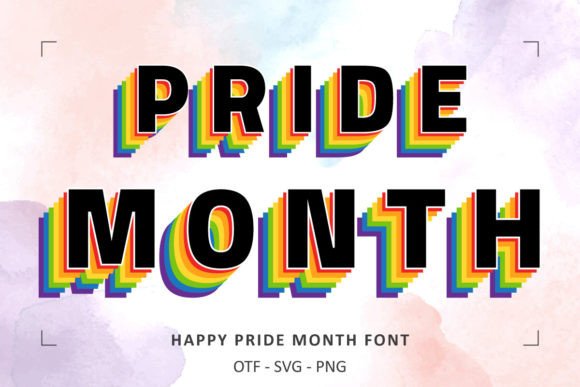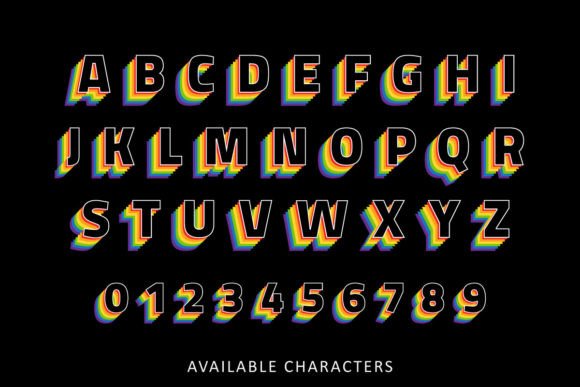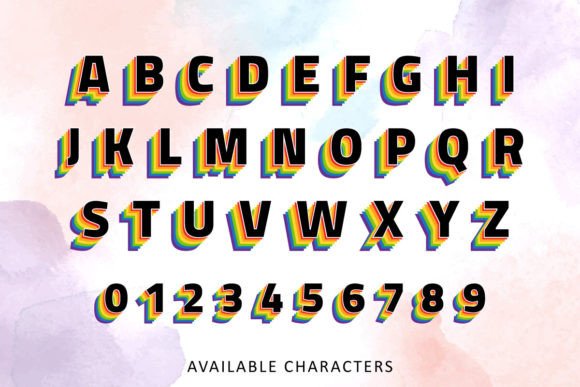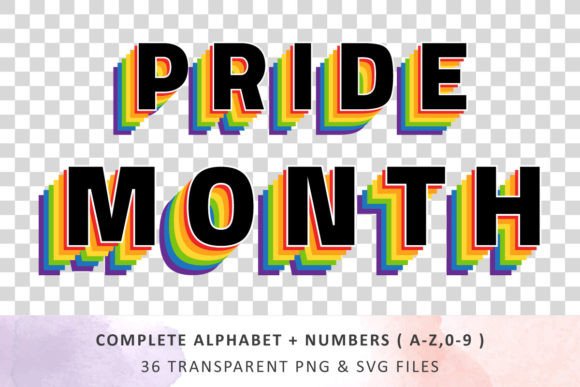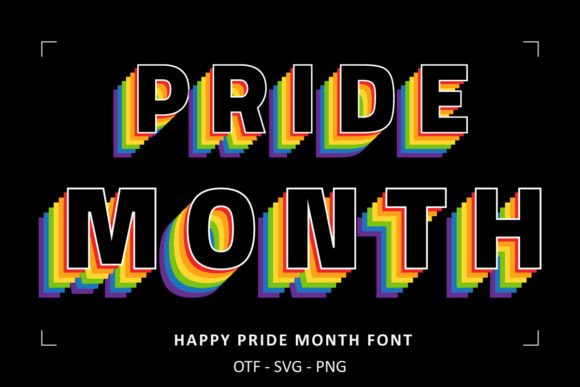
Introducing “Happy Pride Month Font” – Celebrate with Vibrancy and Joy!
As the world prepares to celebrate Pride Month, designers and crafters are on the lookout for unique and meaningful design elements that can add a touch of personality and significance to their projects. In honor of this vibrant and inclusive celebration, we’re thrilled to introduce the “Happy Pride Month Font” – a delightful typeface inspired by the iconic Rainbow Flag.
A Font that Embodies the Spirit of Pride
The Rainbow Flag, designed by Gilbert Baker in 1978, has become an enduring symbol of the LGBTQ+ community, representing diversity, inclusivity, and pride. Our “Happy Pride Month Font” captures the essence of this iconic flag, infusing your designs with a playful and festive vibe. This font is perfect for creating a wide range of Pride Month-themed projects, from social media graphics and t-shirts to greeting cards and stickers.
Key Features of the Happy Pride Month Font
- Inspired by the Rainbow Flag: Each letter and character in the font is crafted to reflect the colorful and lively spirit of the Rainbow Flag.
- Versatile and Fun: The “Happy Pride Month Font” is incredibly versatile, making it ideal for various design projects, including t-shirts, book designs, restaurant menus, blog writing, greeting cards, stickers, and more.
- Casual and Playful Style: The font boasts a casual and playful style that’s sure to add a cool touch to your designs.
Ideas for Using the Happy Pride Month Font
The possibilities are endless with the “Happy Pride Month Font.” Here are some ideas to get you started:
- T-Shirts and Apparel: Create eye-catching Pride Month t-shirts, hoodies, and hats that spread love and inclusivity.
- Social Media Graphics: Design engaging social media posts, stories, and banners that celebrate Pride Month with vibrant and fun typography.
- Greeting Cards and Invitations: Design personalized greeting cards and invitations for Pride Month events, parties, or celebrations.
- Stickers and Decals: Produce colorful stickers and decals that showcase your support for the LGBTQ+ community.
- Blog Writing and Articles: Add a touch of Pride Month spirit to your blog posts and articles with this unique font.
Why Choose the Happy Pride Month Font?
Incorporating the “Happy Pride Month Font” into your designs offers several advantages:
- Unique and Exclusive: Stand out from the crowd with a font that’s specifically designed for Pride Month celebrations.
- Symbol of Inclusivity: Show your support for the LGBTQ+ community and promote inclusivity through your designs.
- High-Quality Design: Enjoy a professionally crafted font that’s both aesthetically pleasing and highly legible.
| Font Name | Happy Pride Month Font |
| Author | Font Craft Studio |
Celebrate Pride Month in style with the “Happy Pride Month Font.” This delightful typeface is the perfect addition to any design project, offering a fun, vibrant, and inclusive way to express your creativity. Whether you’re a designer, crafter, or simply someone who wants to show their support for the LGBTQ+ community, this font is sure to inspire you to create something amazing. So, fall in love with its incredibly cool style, and use it to create lovely designs that spread joy and inclusivity!
Get ready to make your Pride Month designs shine with the “Happy Pride Month Font”!